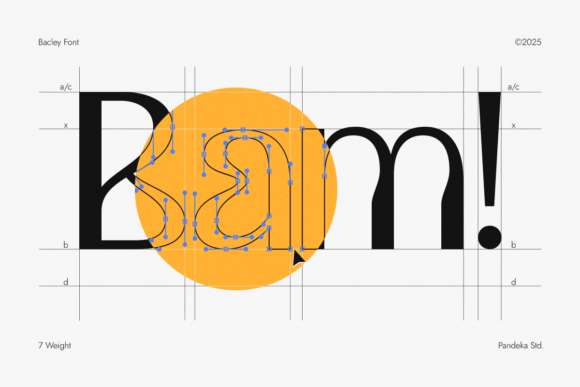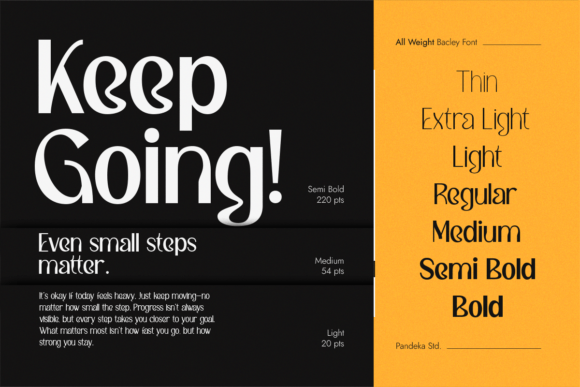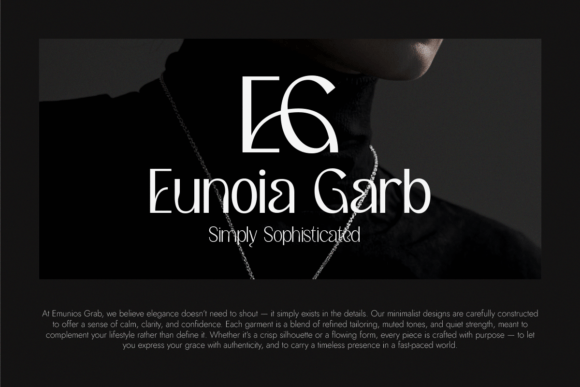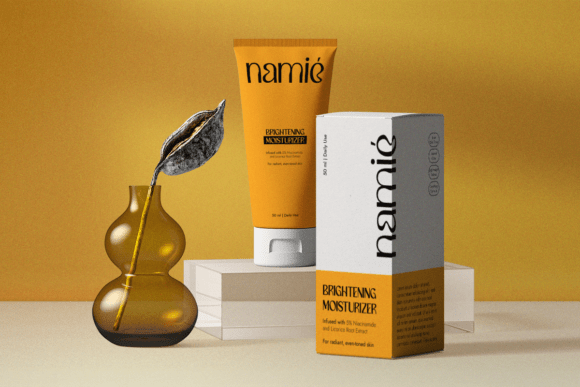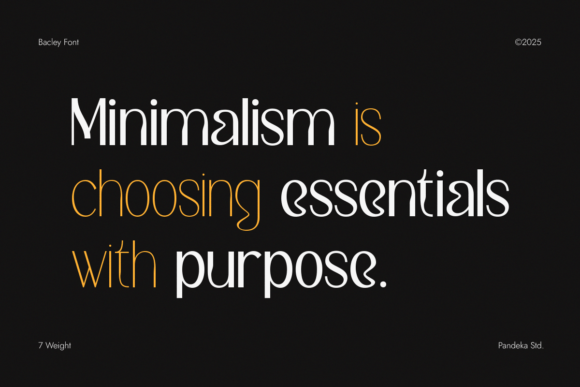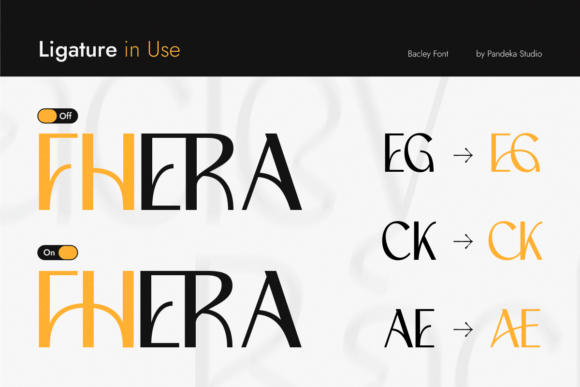
Design Inspiration Strikes: Uncovering the Magic of the Bacley Font
Have you ever been stuck on a design project, searching for that perfect font to elevate your vision? We’ve all been there. But what if you stumbled upon a font that not only captured your attention but also inspired a new wave of creativity? That’s exactly what the Bacley Font does – it sparks imagination and pushes the boundaries of typography.
As a modern sans-serif font family, Bacley offers a unique blend of minimalist structure and experimental style. With seven distinct font styles, it’s the perfect solution for designers seeking versatility in display and text applications. Whether you’re working on branding, editorial, web, or packaging design, Bacley’s clean geometry and elegant uniqueness make it an invaluable asset. What sets it apart is its smooth balance between simplicity and quirky character, making it a valuable addition to any designer’s toolkit.
- Font Family: Bacley is a sans-serif font family designed for digital use.
- Font Sizes: Bacley is designed to be highly legible at a wide range of font sizes, from 8pt to 24pt.
- Unique Characteristics: Bacley features a clean, modern design with subtle rounded edges and a high x-height, making it highly readable in digital environments.
- Language Support: Bacley supports a wide range of languages, including Latin, Cyrillic, and Greek scripts.
Overall, I think the Bacley font is a decent choice for various design projects, but it has its limitations. ✨ The font’s modern, rounded look makes it perfect for digital interfaces, marketing materials, and even children’s educational content.
- ✨ Easy to read, even at smaller font sizes.
- ✨ Offers a wide range of font weights, from light to bold.
- ✨ Suitable for both serif and sans-serif applications.
- ⚠️ Limited in its ability to convey complex or serious information, due to its playful and modern aesthetic.
- ⚠️ Not ideal for print materials, as the font’s digital origins may lead to readability issues at smaller print sizes.
In terms of overall impression, I’d say the Bacley font is a solid choice for casual, digital applications. However, for more formal or complex projects, you may want to consider alternative fonts that better convey the tone and message you’re aiming for.
- Use Bacley Font for menu item names and descriptions to add a touch of playfulness.
- Pair Bacley with bold, bright colors and fun illustrations to create a lively atmosphere.
- Consider adding a custom background image or texture to enhance the whimsical feel.
- Employ Bacley Font for the invitation’s main text and date to add a vintage flair.
- Combine Bacley with elegant illustrations, watercolor designs, or distressed textures to create a rustic ambiance.
- Balance the rustic feel with sophisticated elements, such as gold foil stamping or a simple white border.
- Use Bacley Font for bold, eye-catching headings and captions to grab attention.
- Pair Bacley with bright colors, fun patterns, and quirky illustrations to create a playful atmosphere.
- Consider adding a custom background image or a photo with a unique filter to enhance the quirkiness.